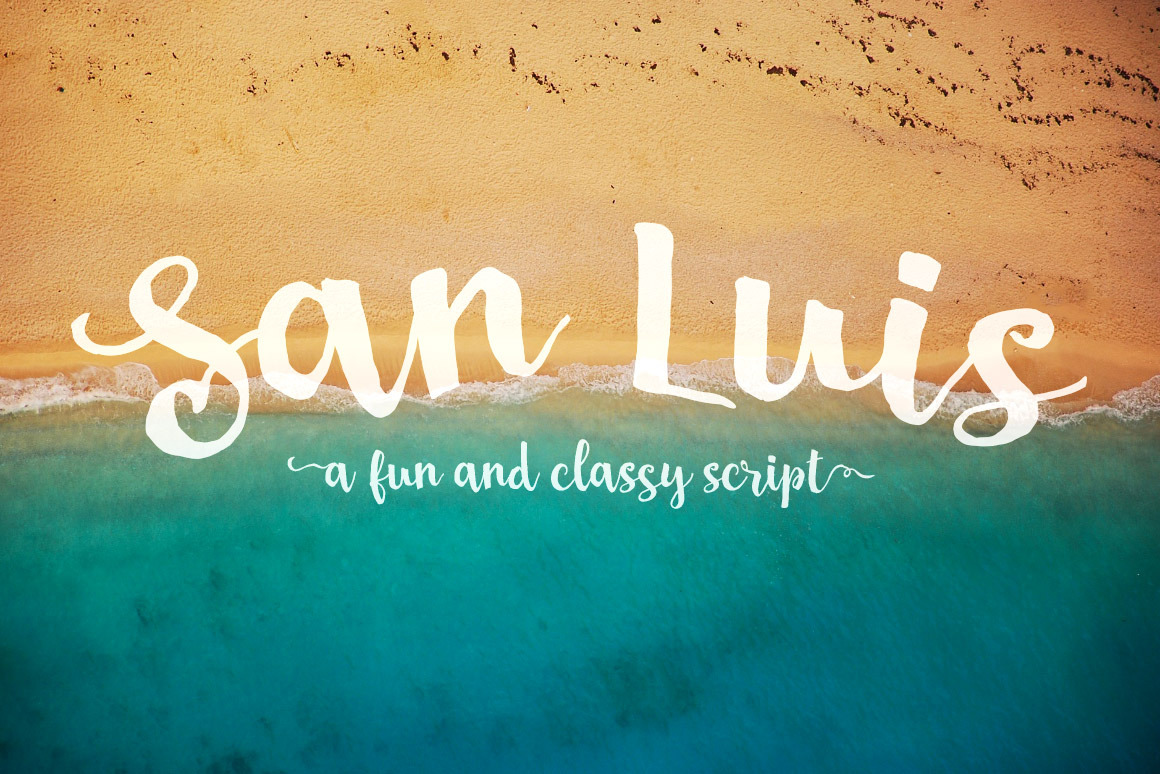
San Luis Script Font
San Luis is a slightly rugged script that is inspired by the cool breeze and soft sand of the central California coast. It's fun and flowing, but also classy and elegant.
Included are plenty of OpenType features like ligatures and initial and terminal forms for a little extra flair.
Multilingual characters are also included to cover a majority of Latin-based languages.
San Luis works best at large sizes, and is perfect for headings, publications, labels, logos, signage, and more.